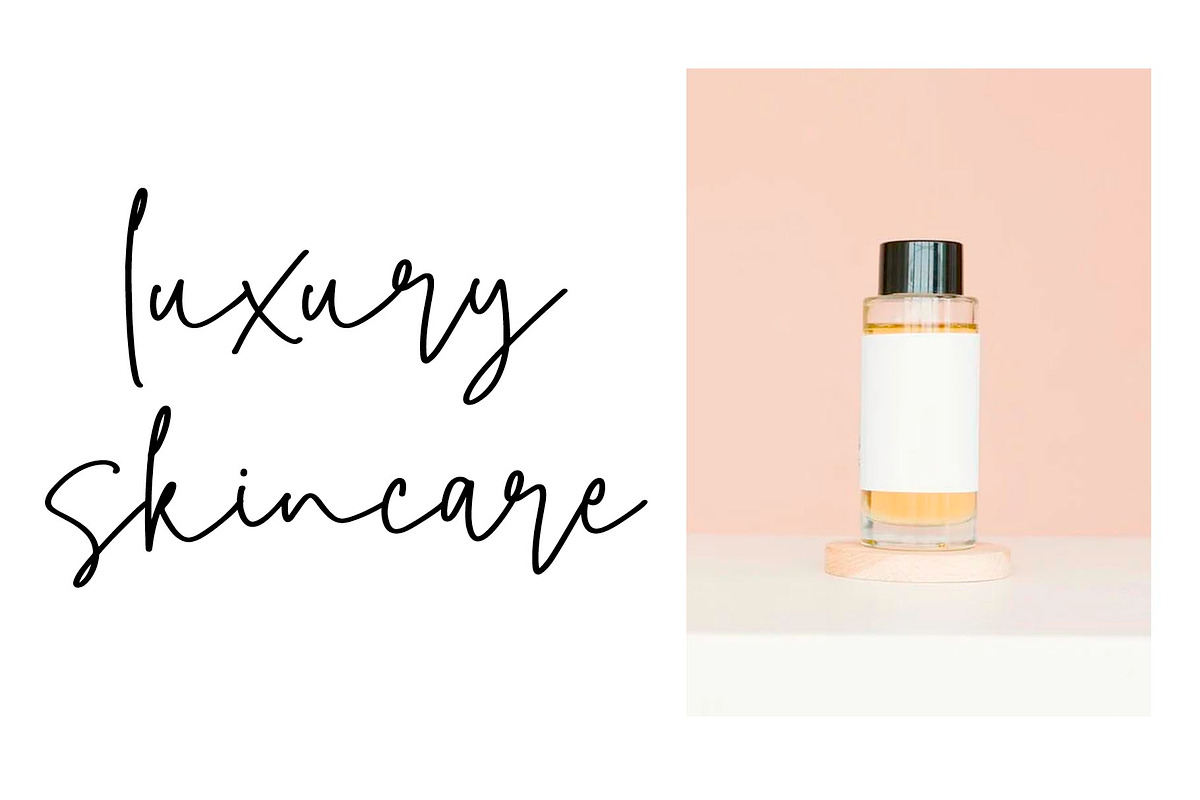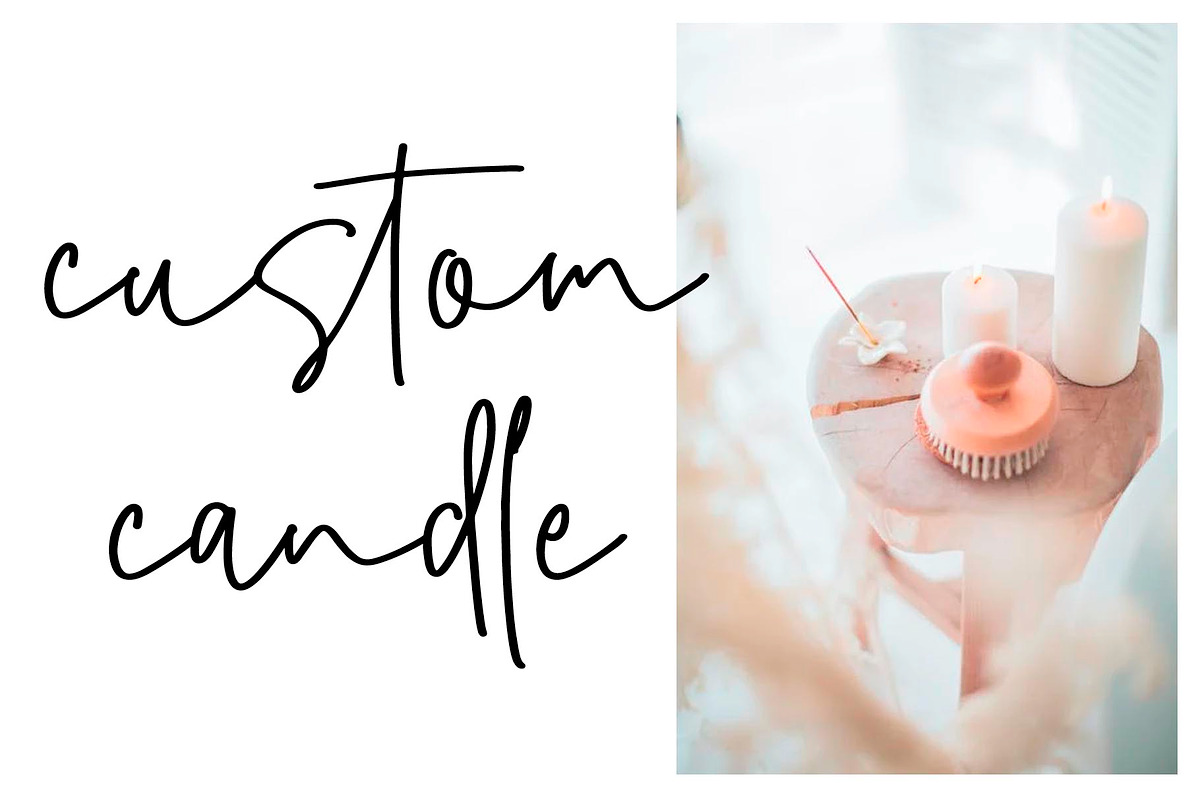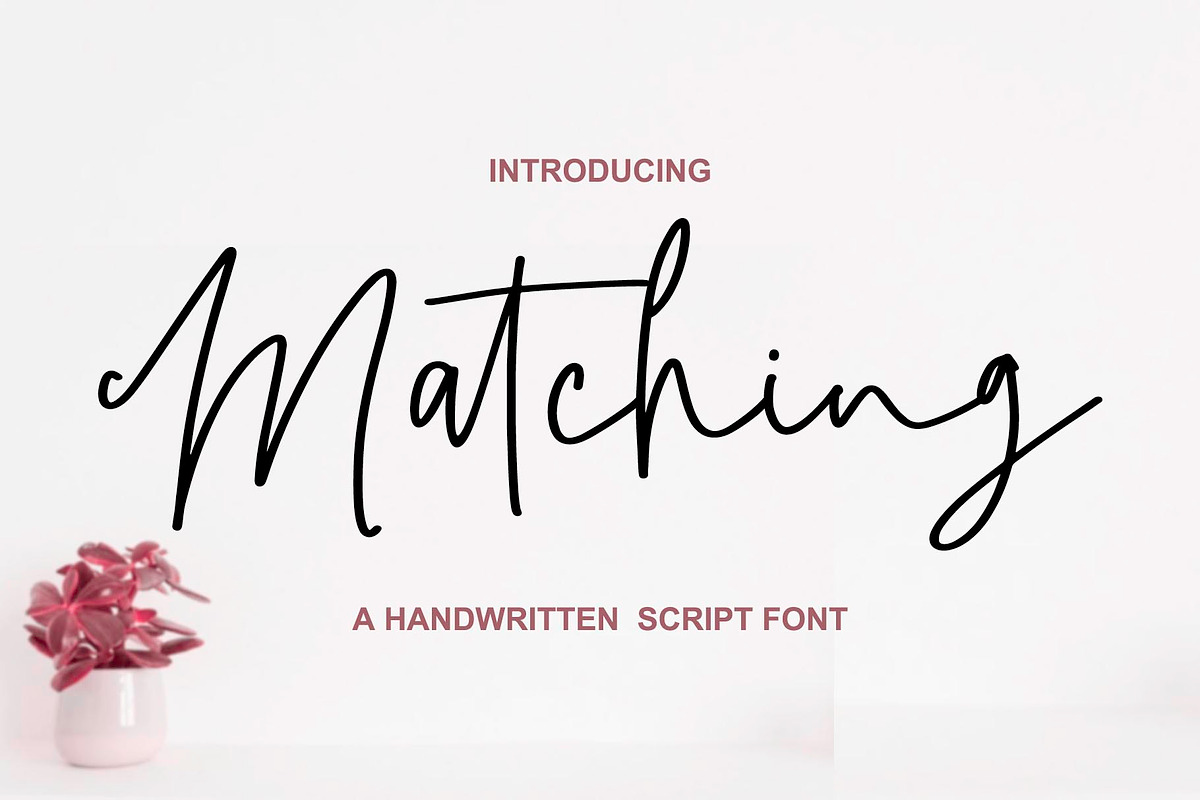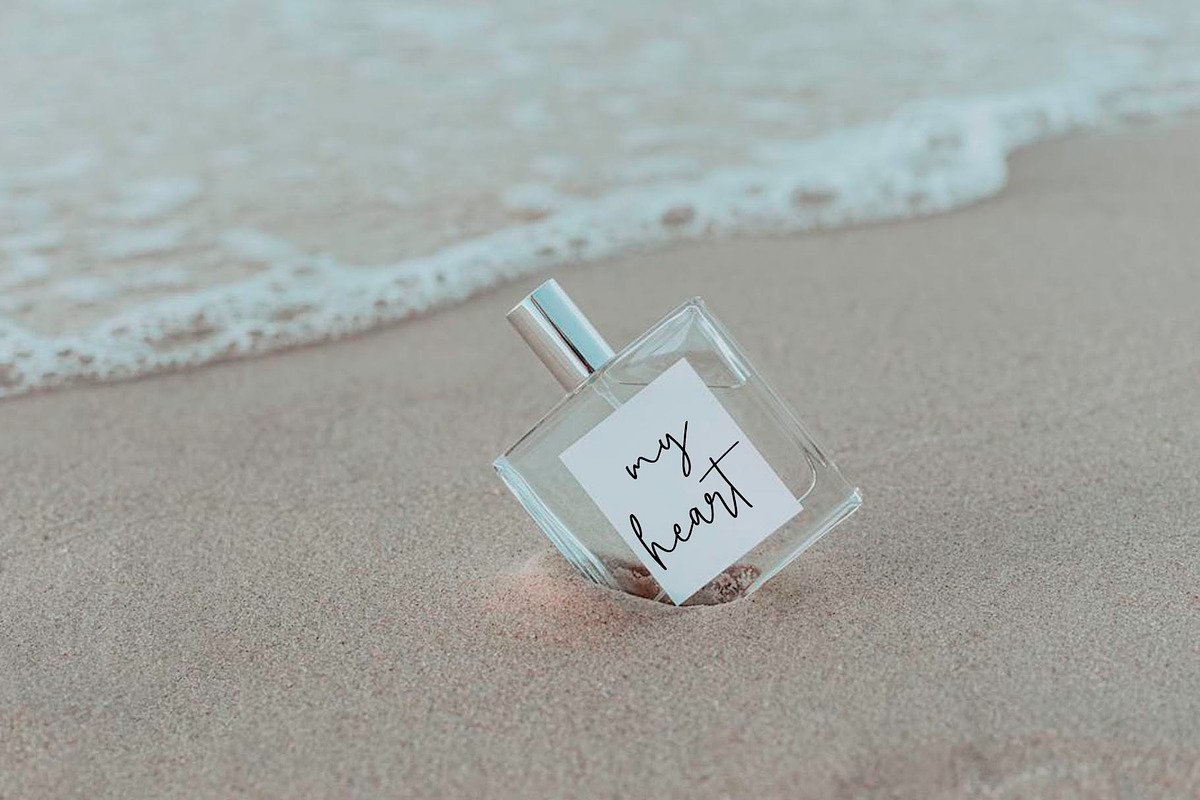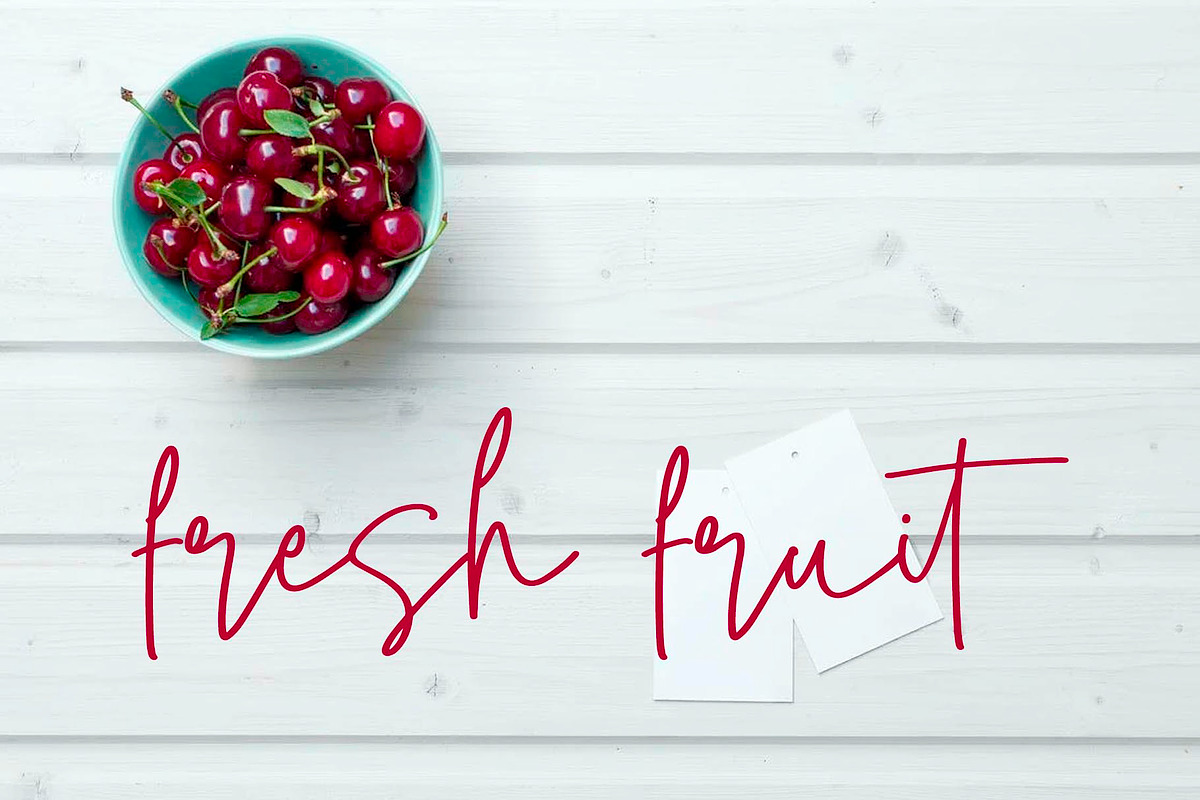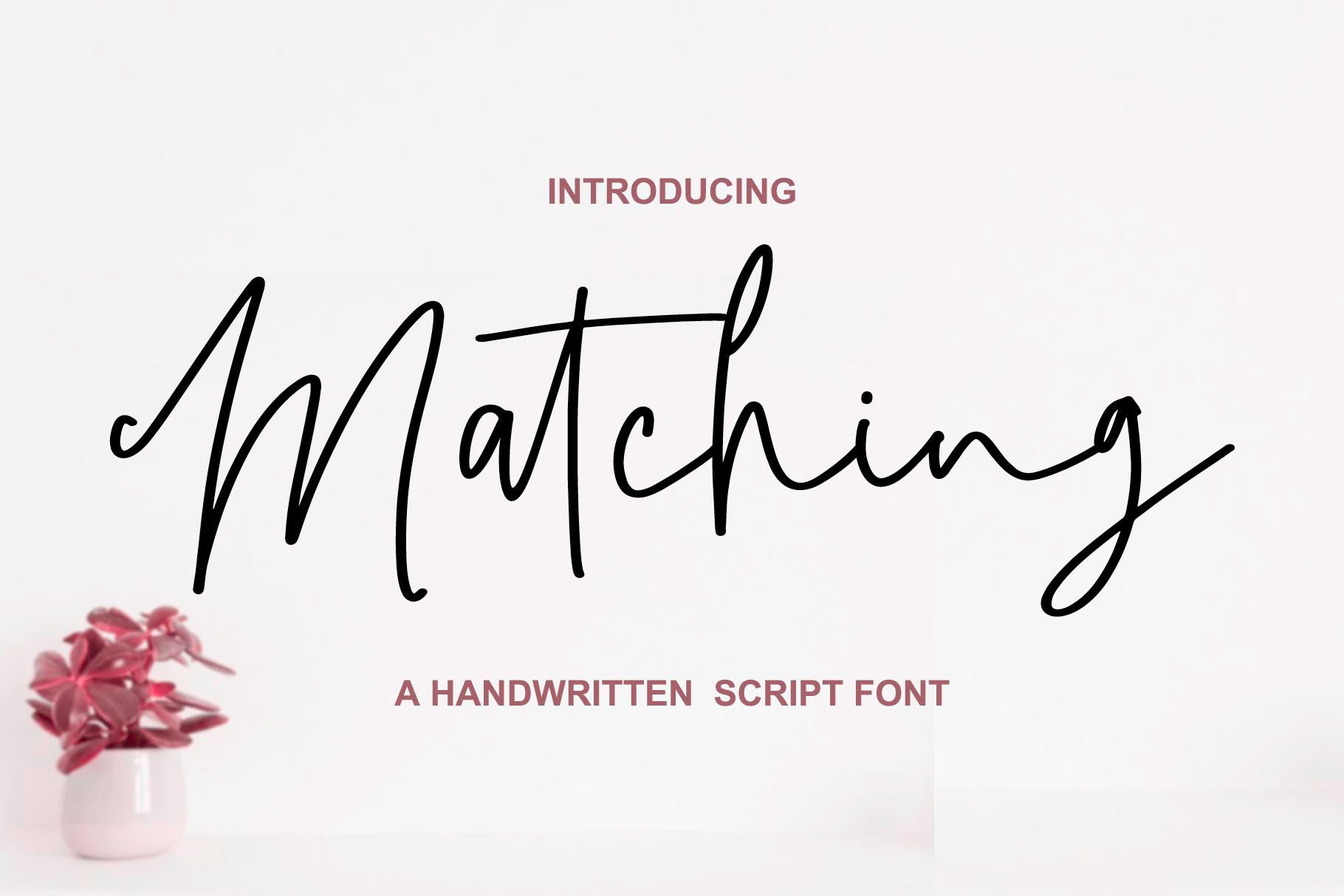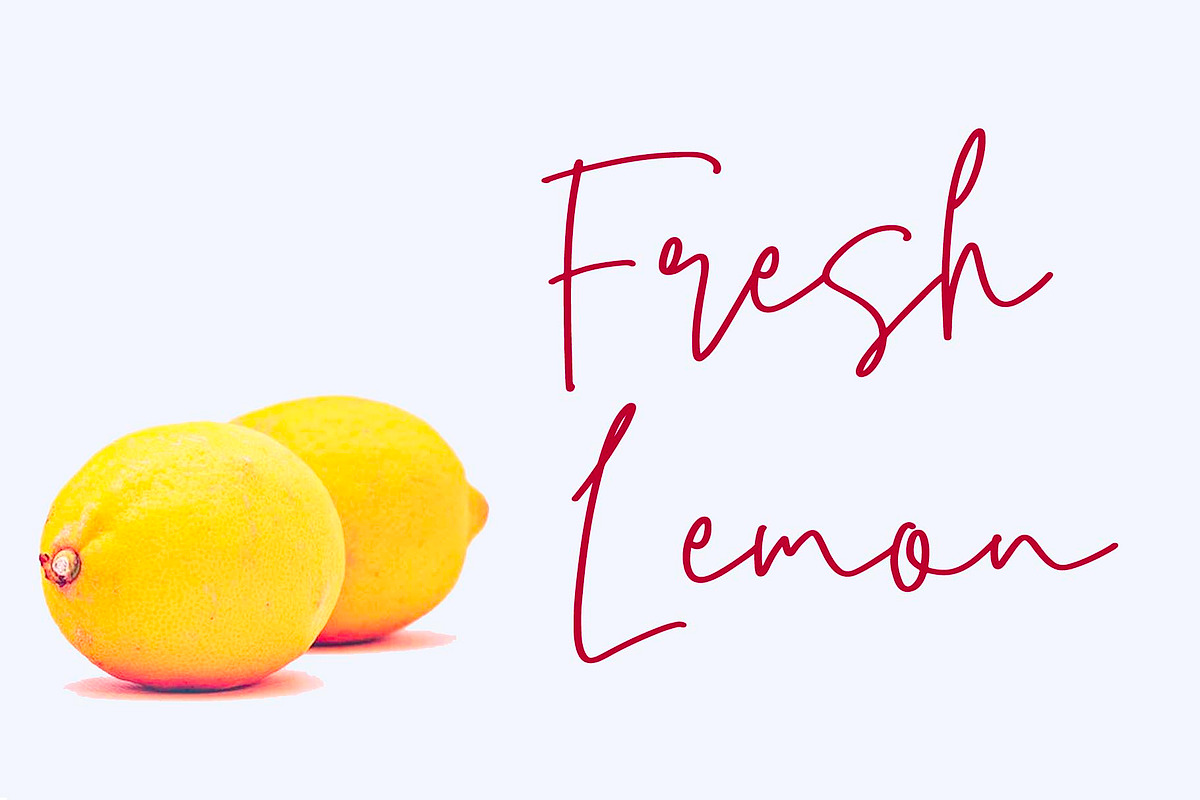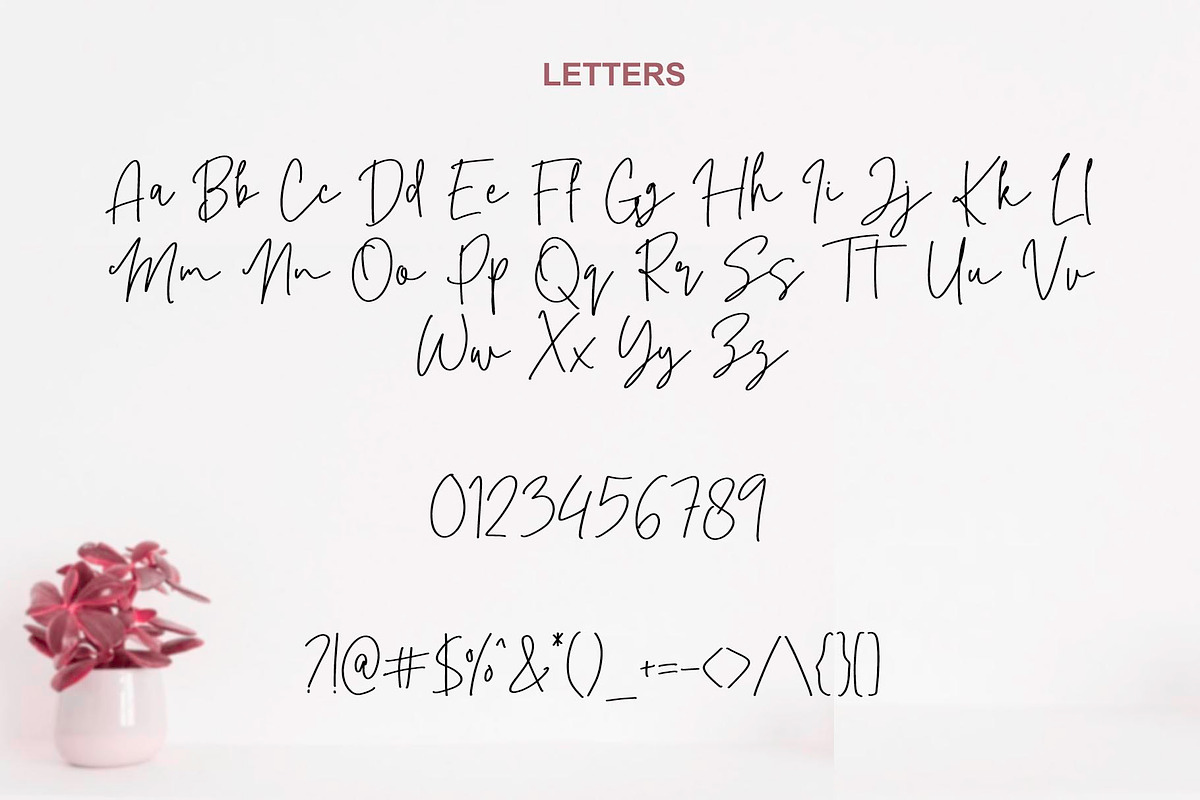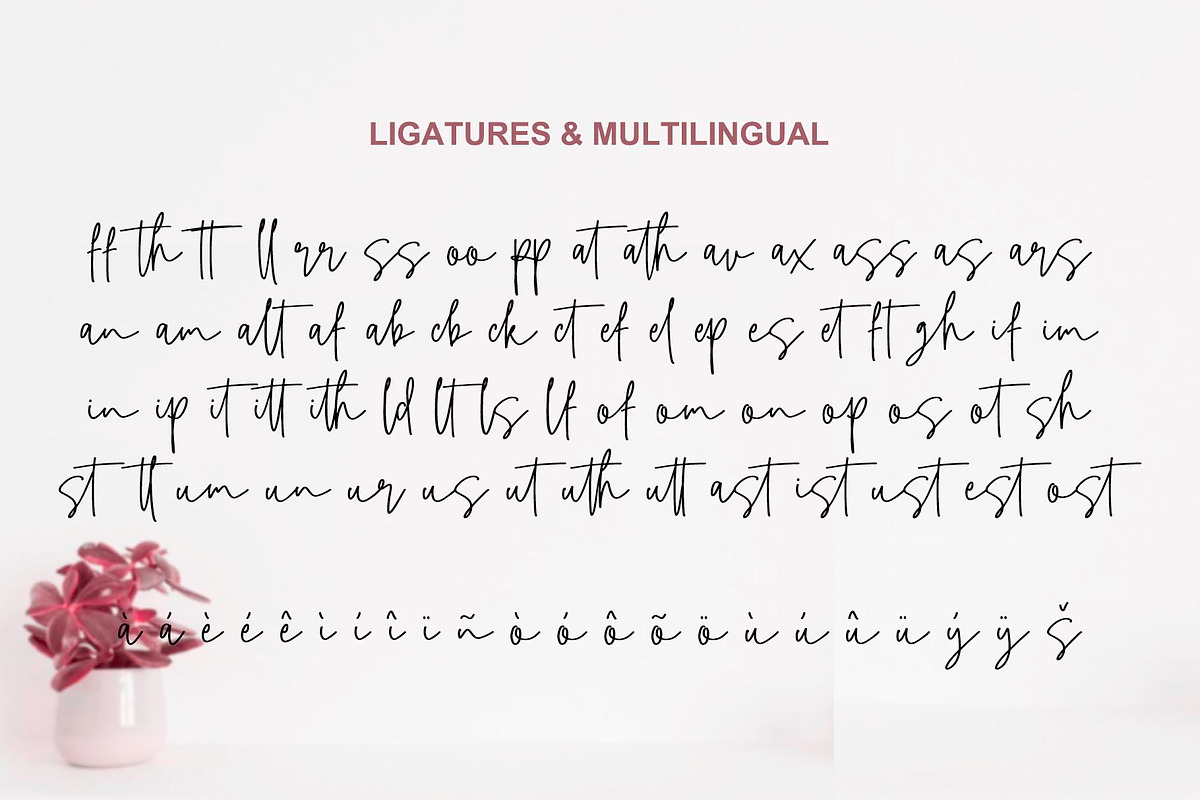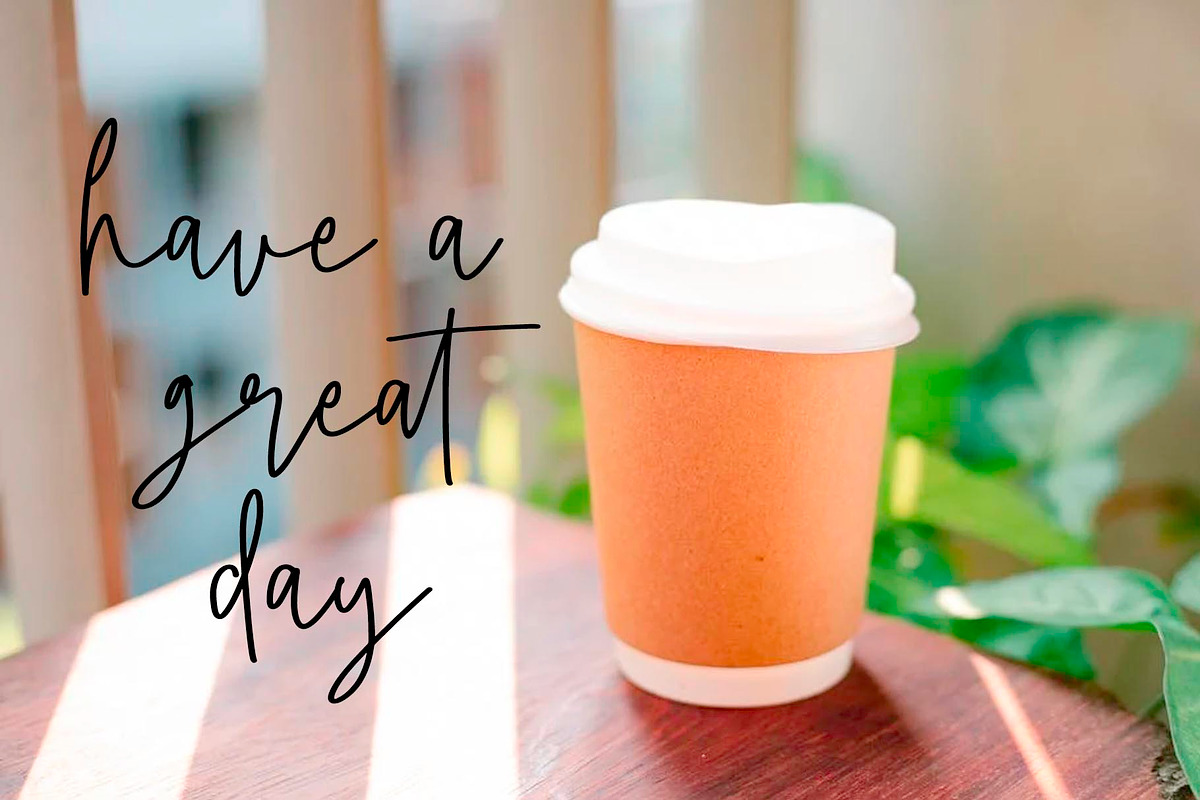
Matching - Handwirtten Font
Matching is a beautiful, casual script adds a custom and organic feel to any design you need!
With 60+ ligatures, you can create text that looks totally handwritten rather than like a font. Simply swap the occasional letter for its alternate (using the glyphs or special characters panel), and turn on your ligatures.
- Uppercase A-Z, lowercase a-z, numbers, punctuations
- Multilingual symbols,
- 60+ ligatures for a totally handwritten look